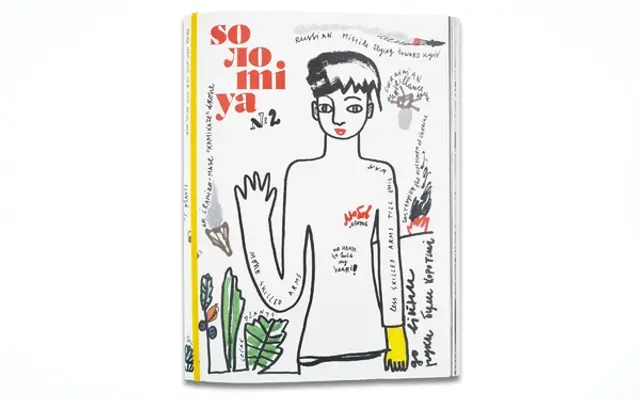
Nice Collection
Fontwerk · Jan Fromm · 2022
A four-optical-size serif superfamily by Jan Fromm, covering everything from micro caption setting to large-scale poster type within a single harmonised system.
Designed by Jan Fromm and released in 2022, Nice spans four purpose-built optical sizes: Micro, Text, Headline and Poster, each tuned for its intended environment while sharing a consistent visual language. All four subfamilies run across seven weights from ExtraLight to Black with matching italics, giving 56 styles in total. The system suits editorial and publishing contexts where type must perform cleanly across a full range of scales.
A serif superfamily structured around four optical sizes (Poster, Headline, Text, Micro), placing it firmly in the tradition of optically-calibrated text and display type systems.